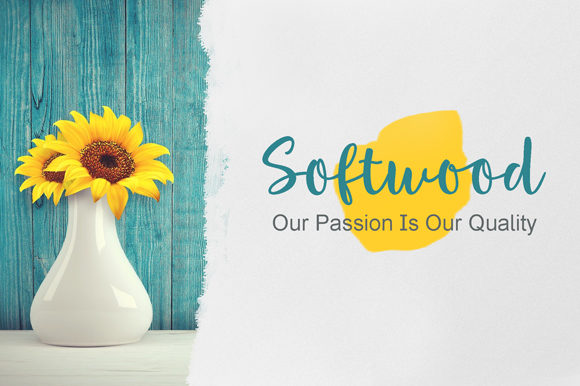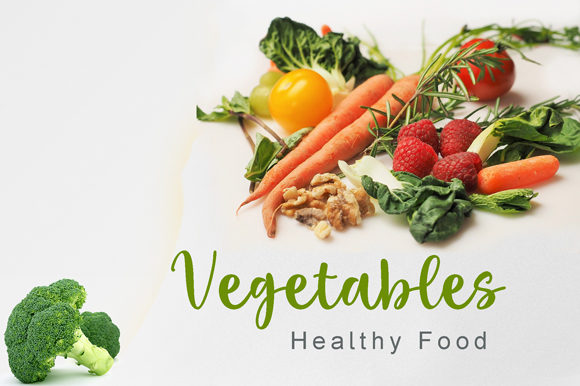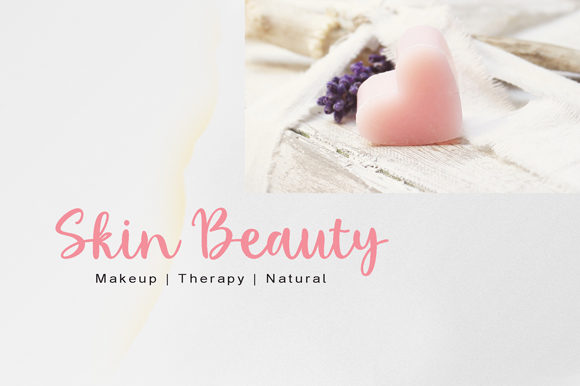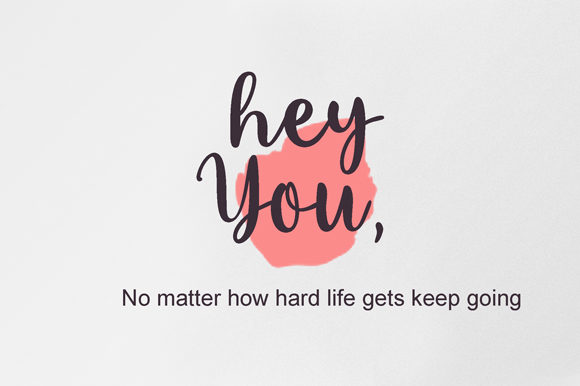
Apple Font
About Apple Font
Apple is a handwritten font with a fun, modern look! It is defined by smooth curves and is perfect for fashion branding or editorial designs. Add it confidently to your projects, and you will love the results.